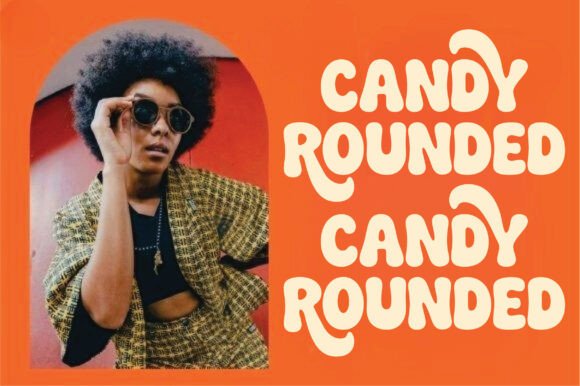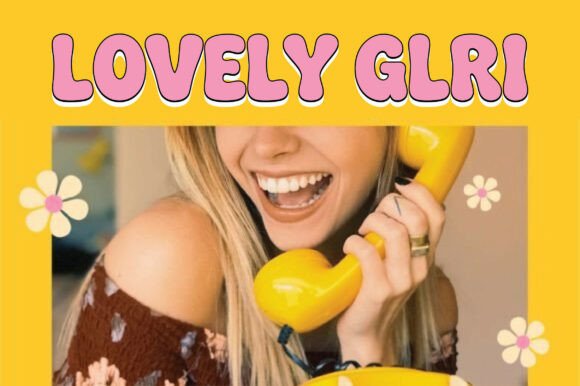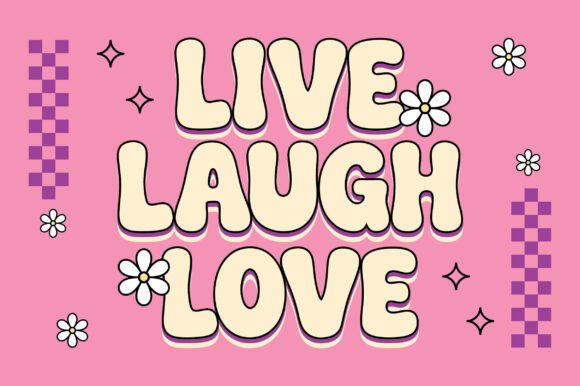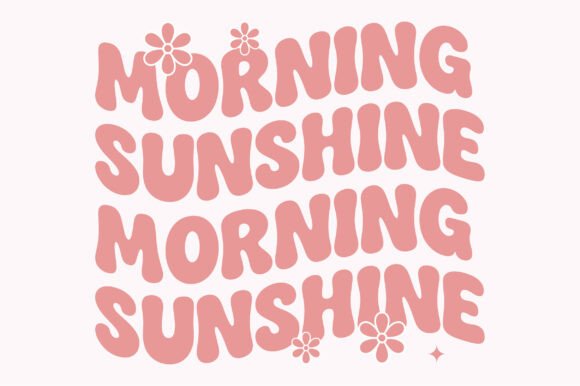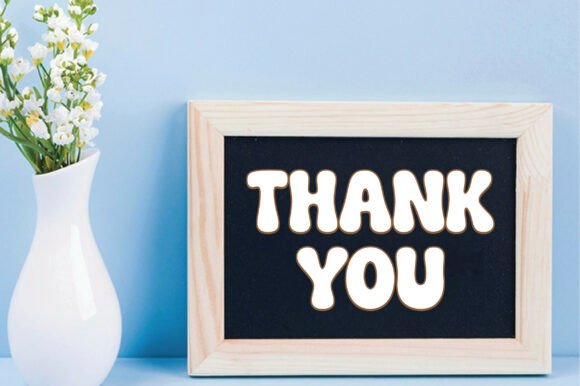
The Sweet Spot for Your Next Design Project
Do you ever find yourself scrolling through design inspiration boards, and suddenly, a font catches your eye? For many creatives, it’s that “aha” moment when you know you’ve found the perfect font to elevate your project. For me, it was the discovery of the Candy Rounded Font – a playful, rounded display typeface that screams joy and whimsy.
This delightful font is perfect for adding a touch of personality to your designs. With its smooth proportions and friendly, handmade style, the Candy Rounded Font is ideal for logos, headlines, kids’ designs, and social media graphics. Whether you’re a seasoned designer or a small business owner looking to make a statement, this font is sure to bring a smile to your audience’s faces. Its rounded shapes add a modern twist while maintaining a professional polish.
Candy Rounded Font Key Features
- Font Family: Candy Rounded Font is a unique, hand-drawn font with rounded edges and a playful feel.
- Character Set: Includes a wide range of characters, including uppercase and lowercase letters, numbers, and punctuation marks.
- Unique Characteristics: Features a distinctive rounded design, making it perfect for creating a whimsical and playful atmosphere in designs.
Candy Rounded Font Review
Overall, I think the Candy Rounded Font is a lovely addition to any design project. ✨ The rounded shapes and soft lines give it a friendly, approachable feel that works well in a variety of contexts.
One of the things that really stands out about this font is its versatility. ✨ It can be used for both formal and informal projects, from marketing materials to children’s books. The font’s playful nature makes it perfect for designs that need a bit of whimsy.
That being said, there are a few limitations to the Candy Rounded Font that should be taken into consideration.
- ⚠️ The font may not be suitable for designs that require a lot of precision or technical information. The rounded shapes can make it difficult to read complex data or instructions.
- ⚠️ The font may not be as effective at larger font sizes. The rounded shapes can become distorted and lose their clarity at larger sizes.
Overall, I think the Candy Rounded Font is a great choice for designers who want to add a bit of personality to their projects. While it may have some limitations, its versatility and friendly feel make it a valuable addition to any design toolkit.
Tips for Getting the Most Out of Candy Rounded Font
Use Candy Rounded Font for titles, headings, and emphasis in your designs.
Pair it with bold and bright colors to create a playful and eye-catching look.
Experiment with different font sizes and styles to add visual interest to your text.
Candy Rounded Font is perfect for:
Children’s party invitations and decorations
Food and beverage branding
Playful advertising campaigns
Alternatives to Candy Rounded Font for Designers
Pacifico is a beautiful script font that can be used for headings, titles, or any other text where a touch of elegance is needed. It is perfect for designs that require a sense of sophistication and refinement. Compared to Candy Rounded Font, Pacifico has a more classic and timeless feel, whereas Candy Rounded Font is more playful and modern.
Great Vibes is a modern script font that is ideal for designs that require a fun and energetic feel. It is perfect for headings, titles, and any other text where a sense of excitement and playfulness is needed. Compared to Candy Rounded Font, Great Vibes has a more dynamic and expressive feel, whereas Candy Rounded Font is more subtle and understated.